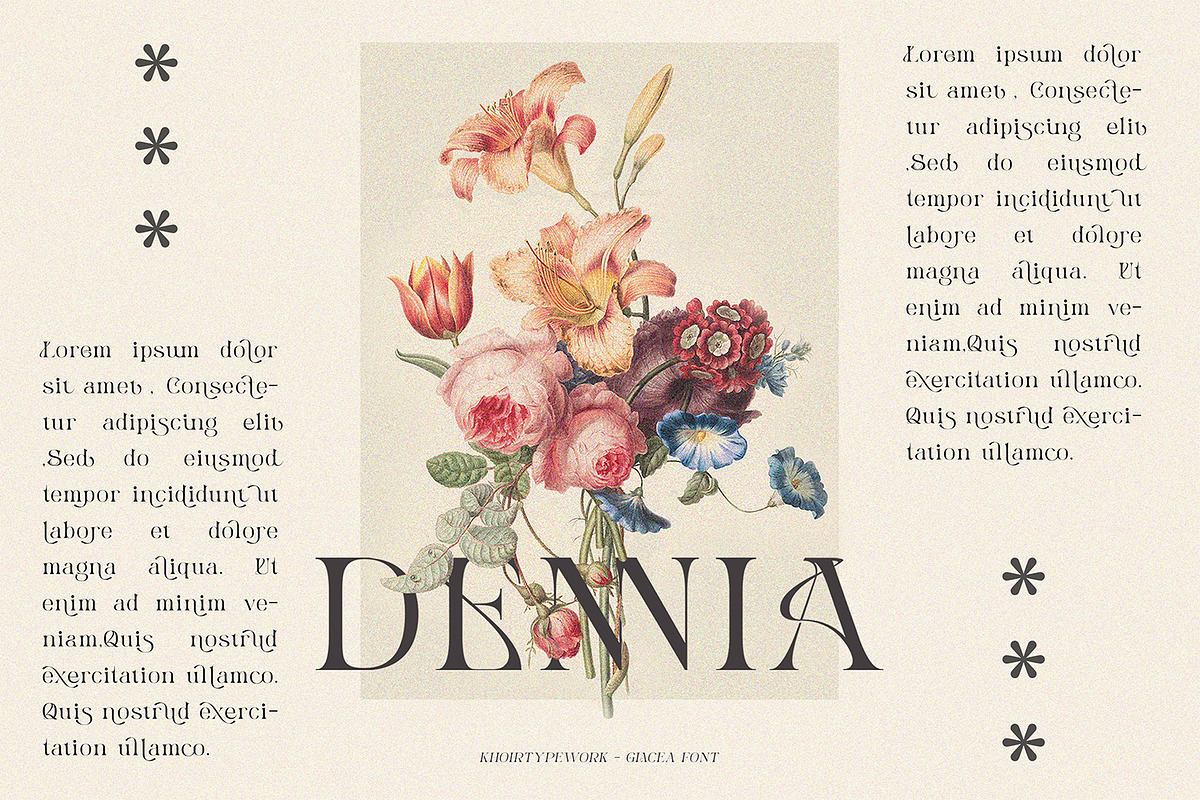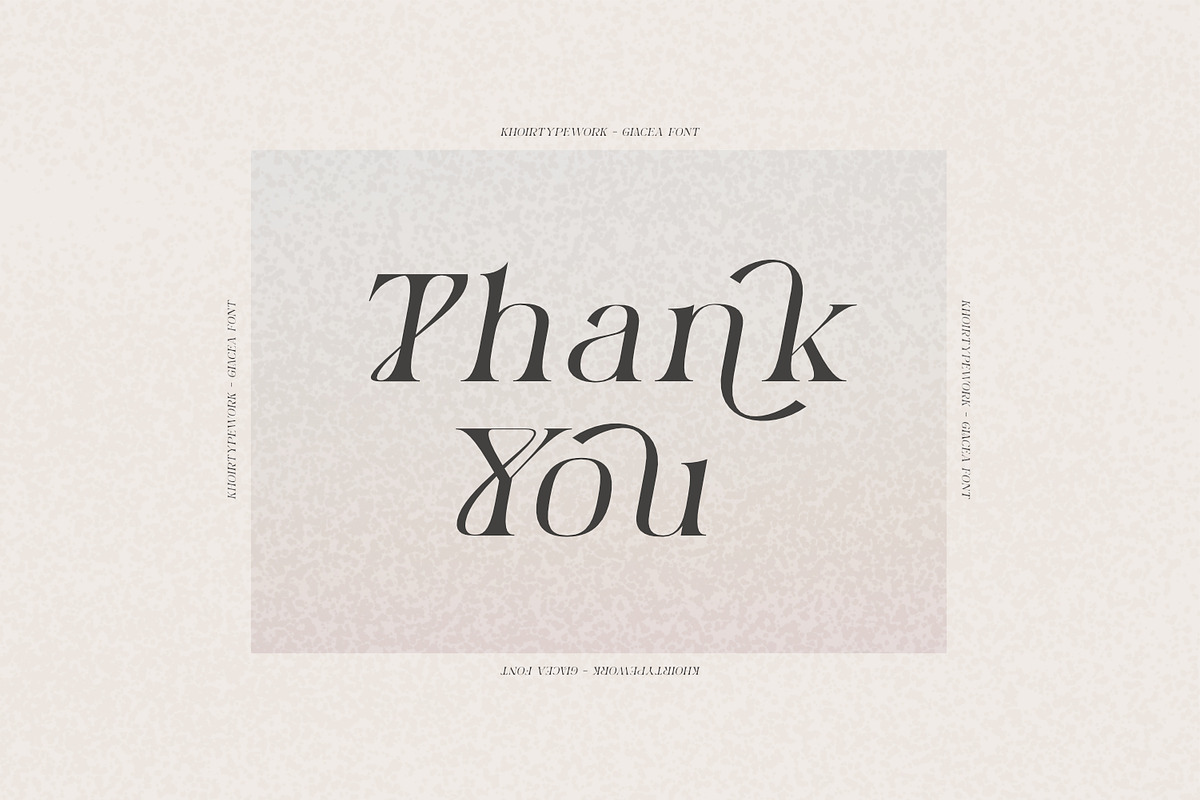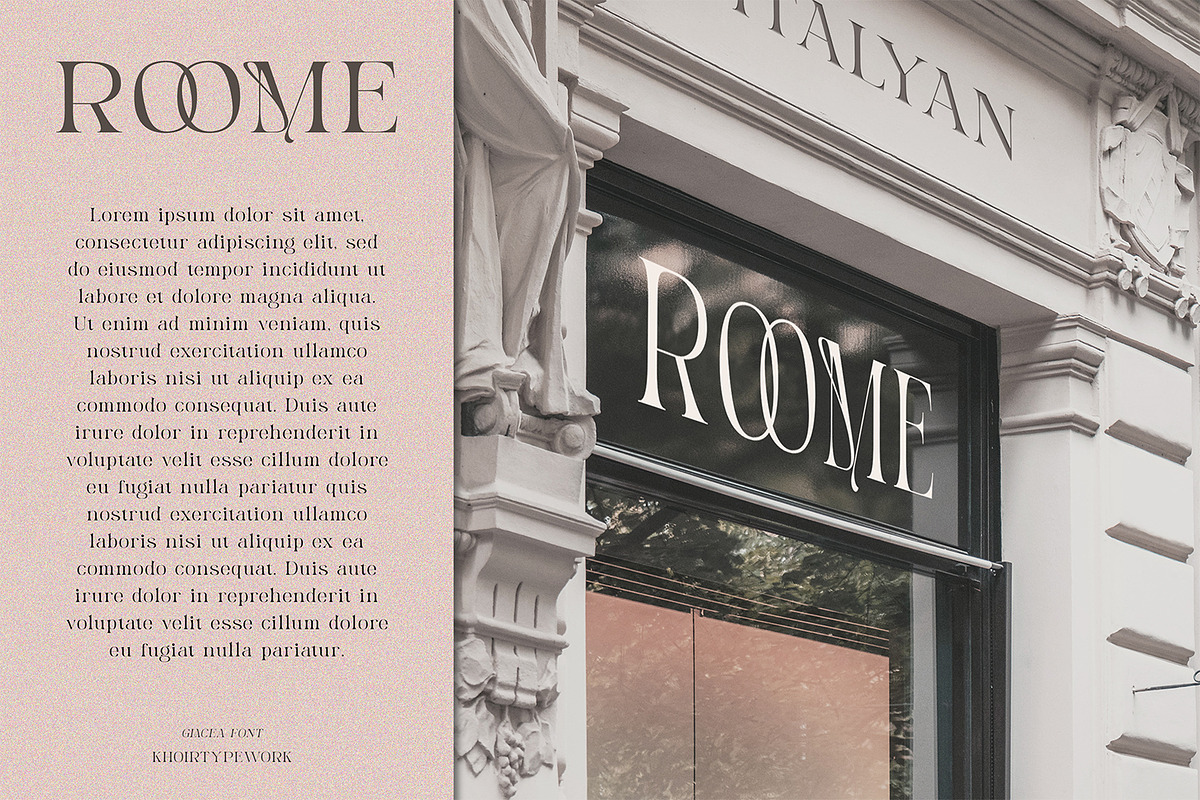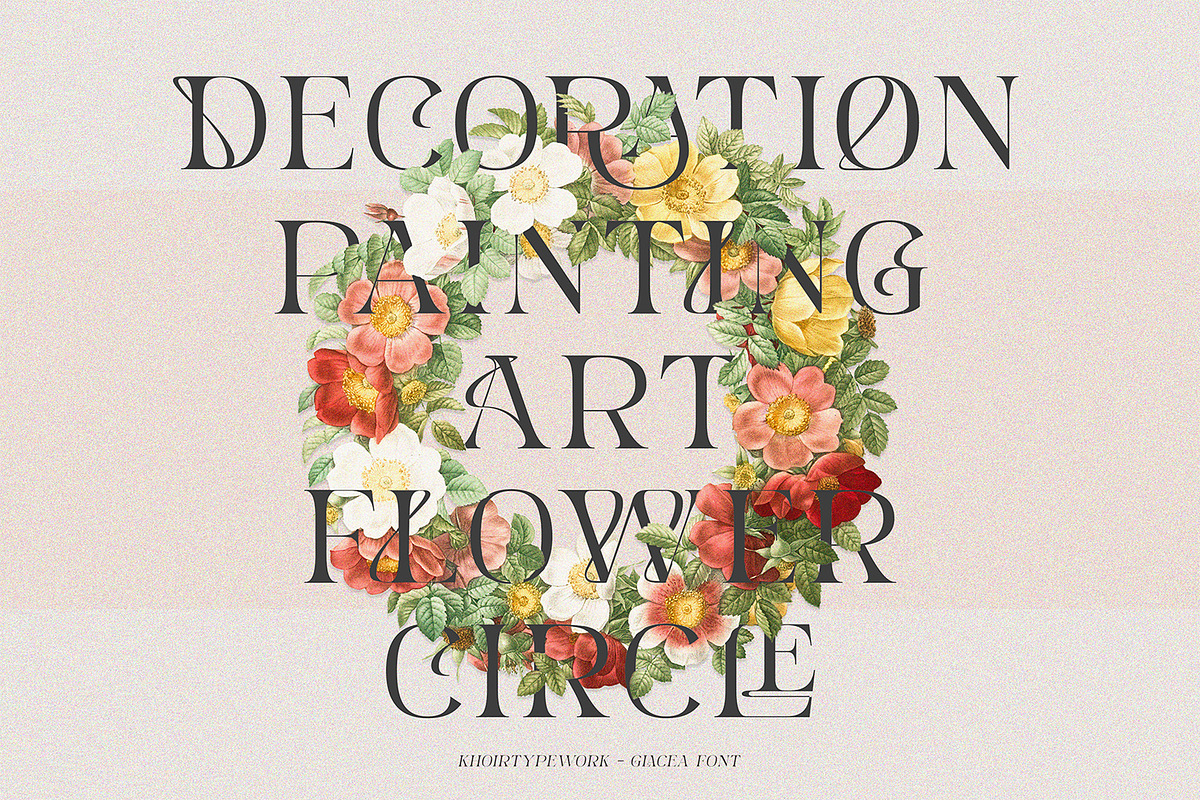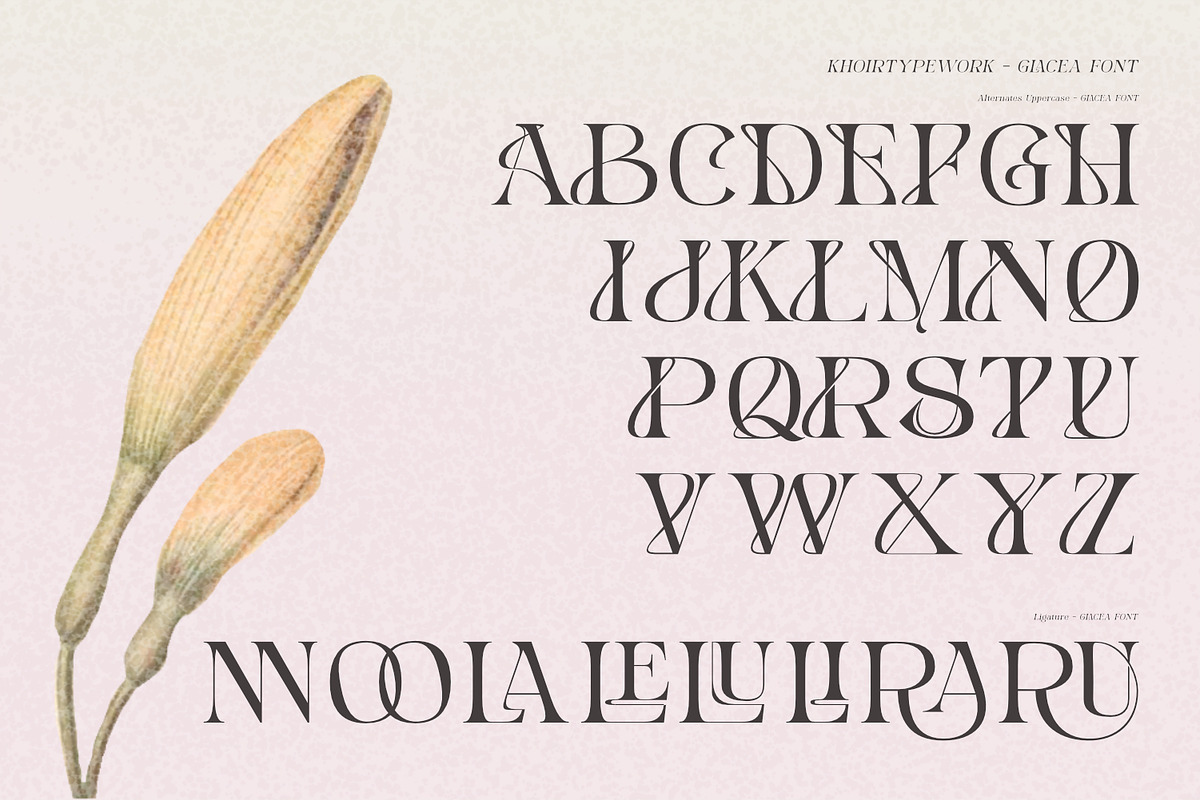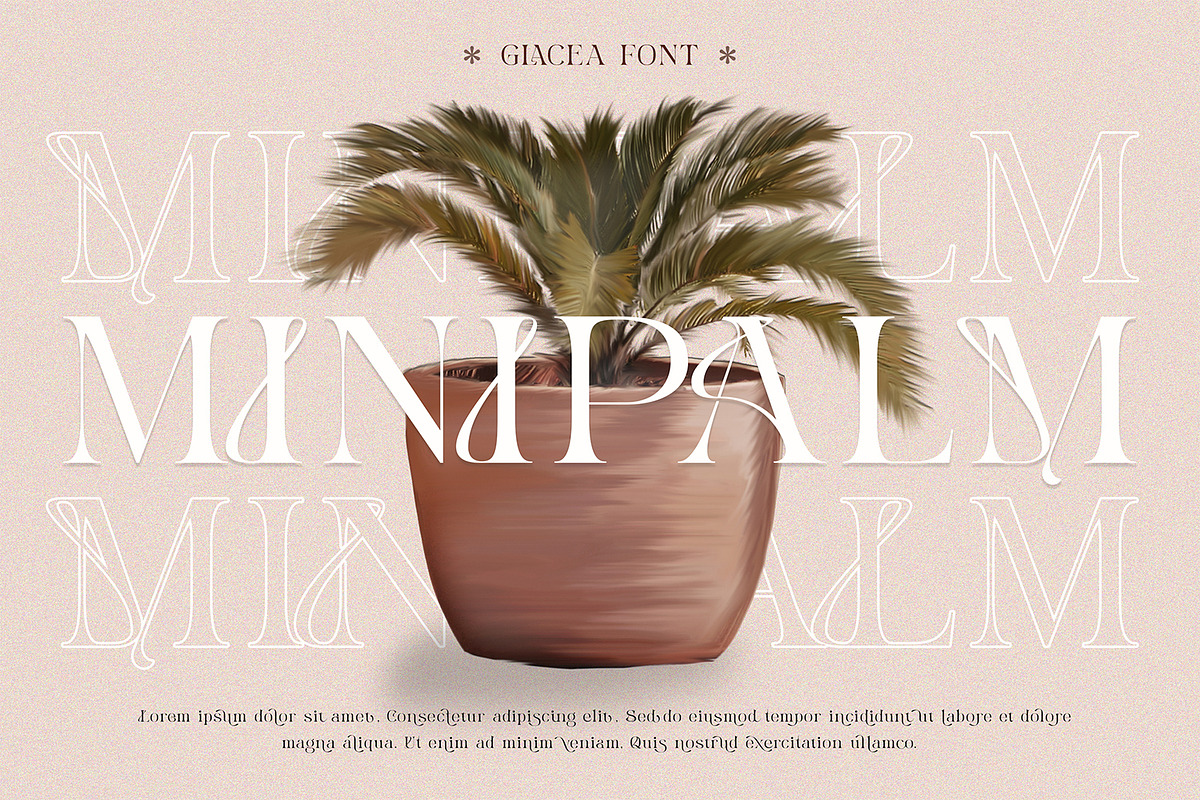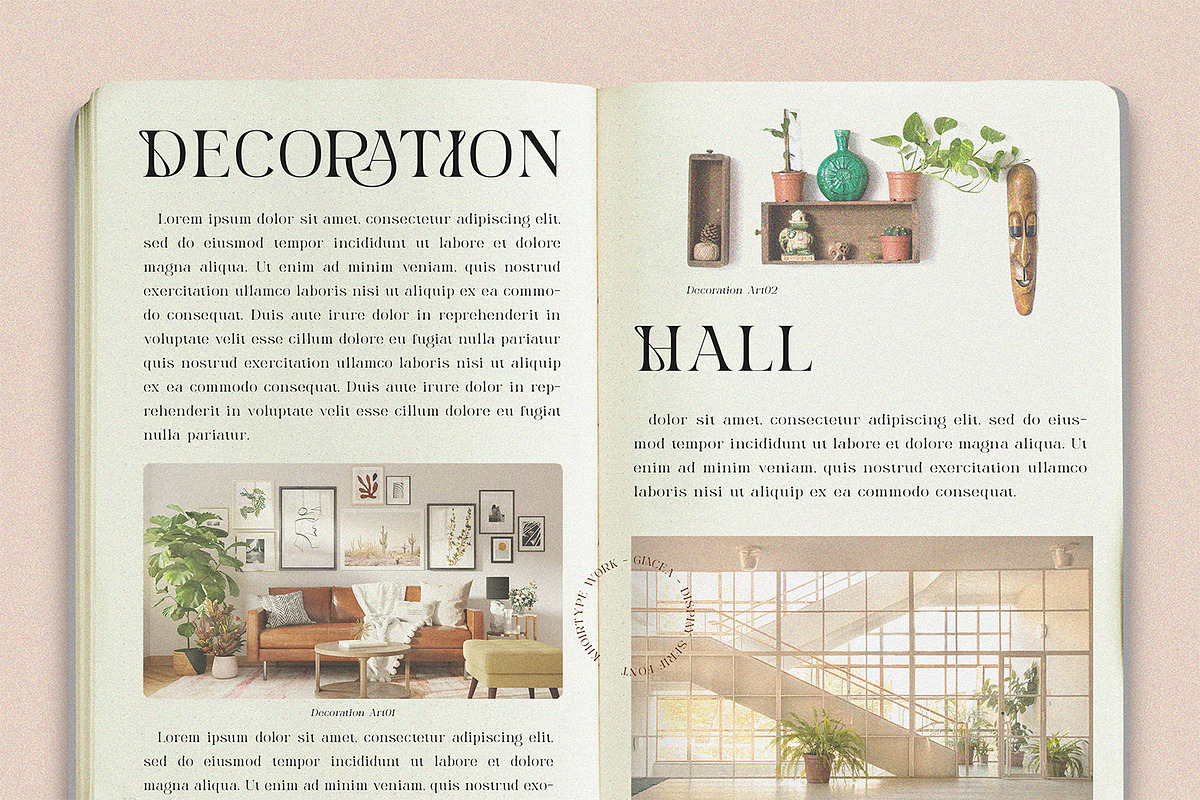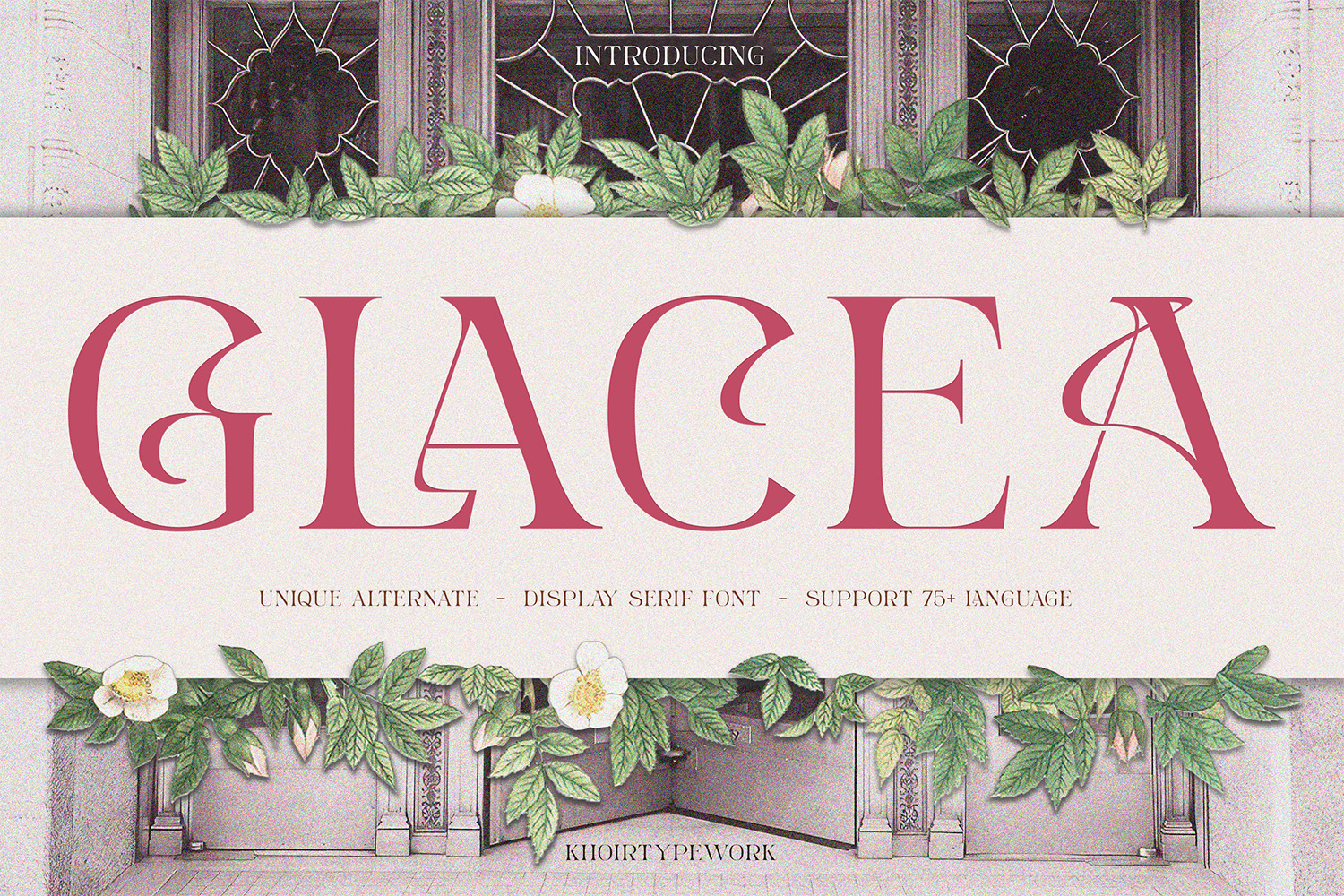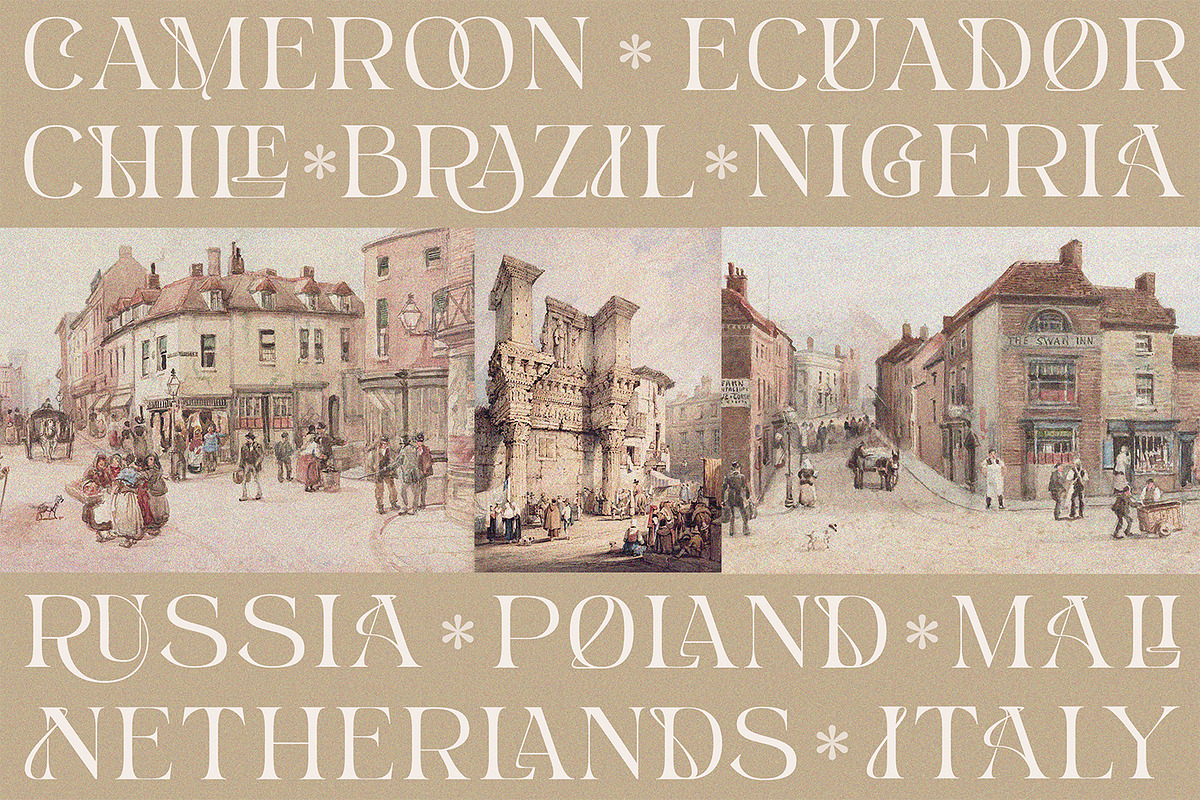
GLACEA - Display Font
GLACEA - Exclusive and unique font that doesn't lose sight of good readability, has 107 alternatives and 8 unique Ligatures, perfect for the project you have in mind, so what are you waiting for?
- Uppercase Characters
- Lowercase Characters
- Support 75+ Language